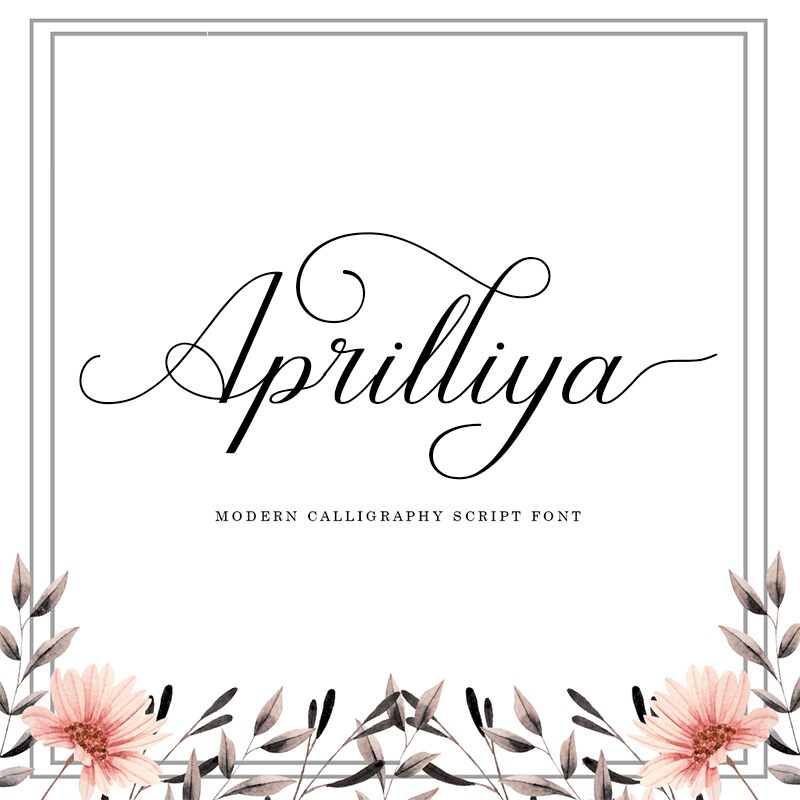
Aprilliya Script is a captivating calligraphy-inspired font that exudes elegance and sophistication. Designed by Riza Haitami, this striking typeface showcases a harmonious blend of flowing strokes and graceful curves, creating a truly mesmerizing visual experience.
The script-like aesthetic lends an air of refined artistry, making it an ideal choice for a wide range of design applications, from high-end branding and editorial layouts to luxurious invitations and sophisticated product packaging. Aprilliya Script's distinctive character and versatility make it a standout choice for designers seeking to infuse their work with a touch of timeless charm and timeless allure.
Whether used as a captivating headline or a delicate accent, this font has the power to elevate any design, lending an air of refined elegance and undeniable visual appeal.
Aprilliya script